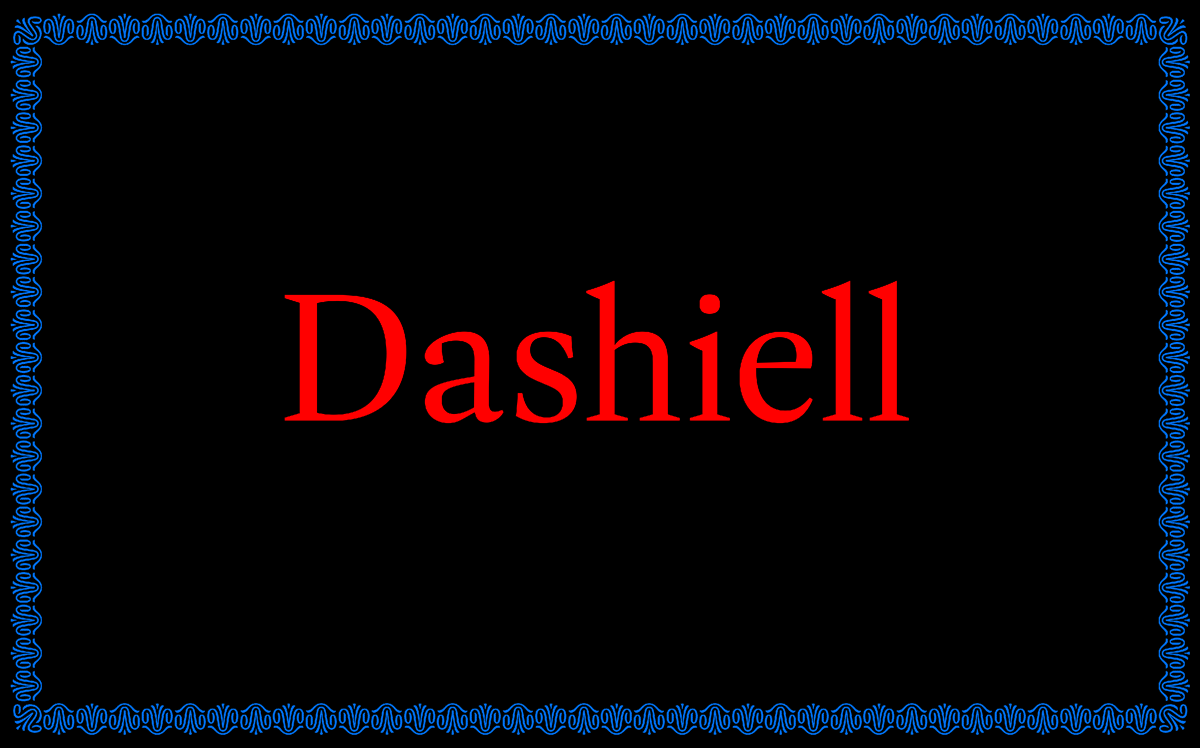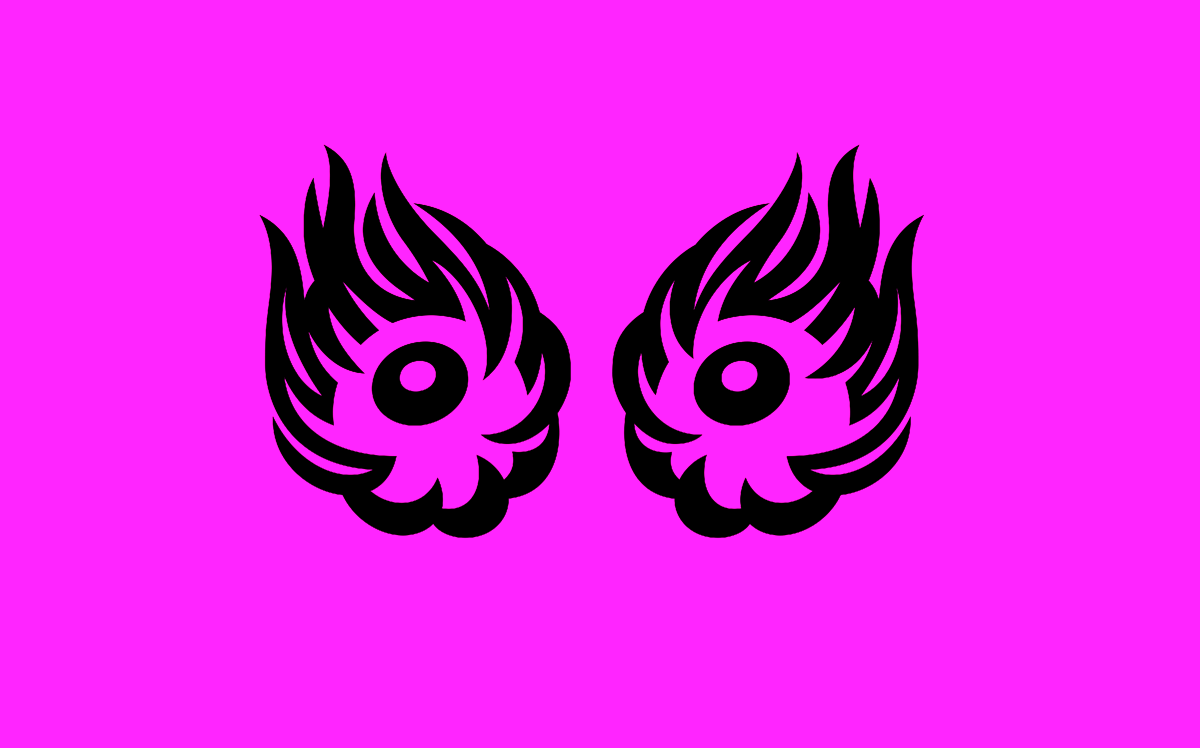
We are presenting our Typeface of the Month: Dashiell by the New York-born, Dublin-based type designer Max Phillips and published by Signal Type Foundry. The Dashiell family consists of three optical sizes that make the font versatile in use. With its classic forms that are both elegant and adapted for easy legibility, the Dashiell typeface exudes a light and vibrant look that adds emotion and individuality to any design. This makes Dashiell a typeface that adapts to the modern and versatile demands of our time without losing its seriousness and quality.
Dashiell was made to be read. Designed by a devoted reader with terrible eyesight, it combines the warmth and openness of Caslon with the lucid elegance of Garamond. Counters and x-height are ample but not large. Apertures are moderately open, and unbracketed wedge serifs add crispness. It’s available in six weights and three optical sizes to meet a wide range of contemporary needs.
Dashiell Text is an all-round workhorse: sturdy but open, with modest contrast, and carefully balanced to work both onscreen and on paper. Dashiell Bright has more sparkle, and is especially suited to printed books and magazines. And the dramatic contrast and wiry hairlines of Dashiell Fine are made for large sizes; it includes a bonus Light weight for especially delicate work.
Named for Dashiell Hammett, whose succinct grace helped modernize twentieth-century American fiction, Dashiell supports over 140 languages and includes proportional and tabular lining and oldstyle figures, small caps, case-sensitive punctuation and delimiters. For the non-succinct, there’s also an opulent selection of borders and ornaments.